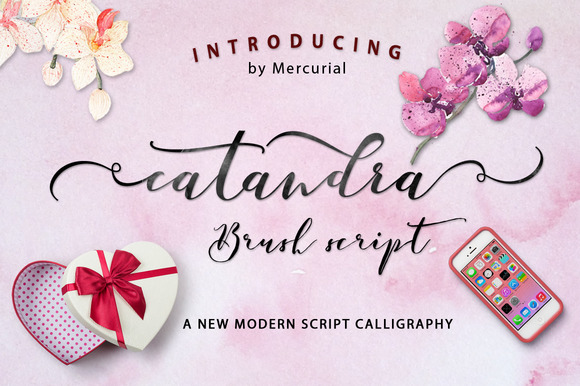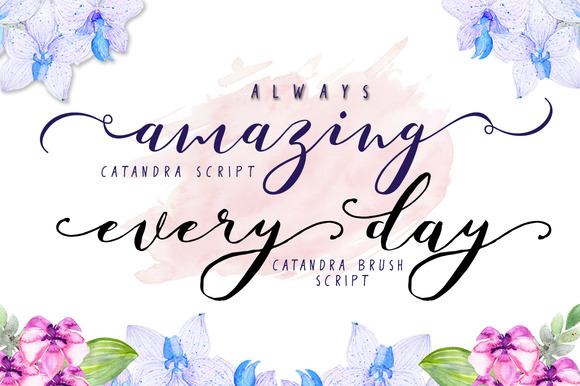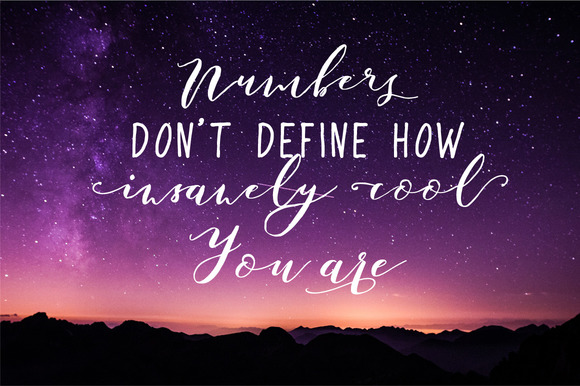
About Catandra Script Font
Catandra is a handmade, charming, modern script. Catandra has a new & fresh touch.
Can be used for various purposes such as headings, logos, wedding invitations, t-shirts, letterheads, signage’s, labels, news, posters, badges and much more.